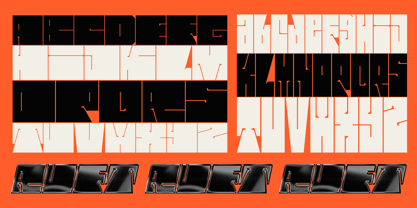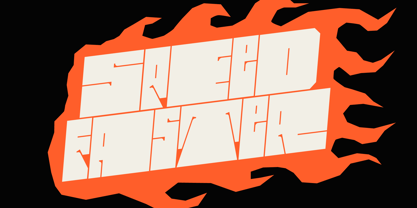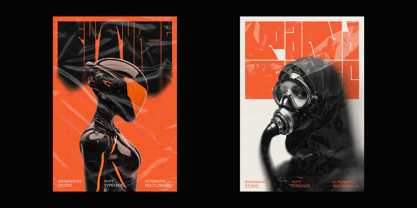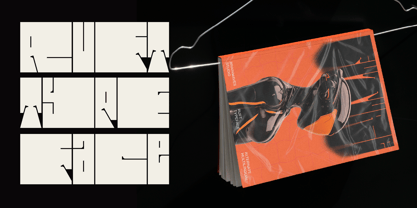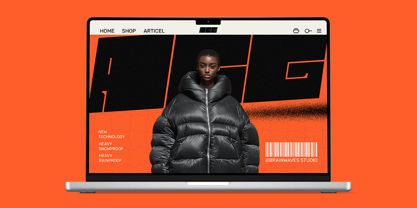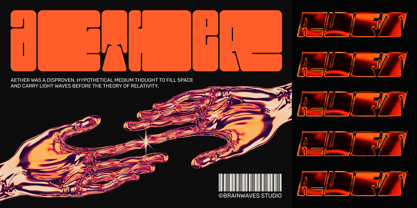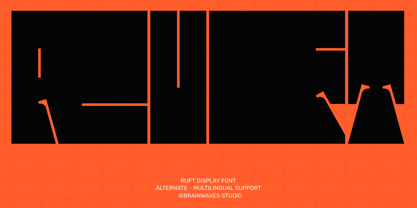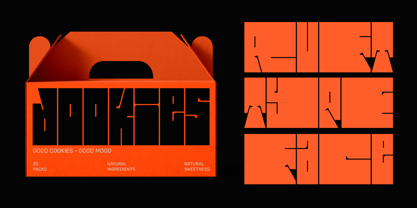
The Ruft Font Family was designed by Lucky Fitriadi and published by Brainwaves Studio. Ruft contains 2 styles and family package options. More about this family
Ruft is a heavy display typeface inspired by brutalist structures and modular grid systems. Each letter is crafted to occupy space with confidence—thick, compact, and sharply cut. With its futuristic edge and architectural weight, Ruft is built for statements that can’t be ignored. Perfect for music visuals, fashion branding, or experimental layouts, this font thrives in bold, disruptive design.
Beyond its visual punch, Ruft is functionally versatile with multiple character styles and wide language support.
Ruft